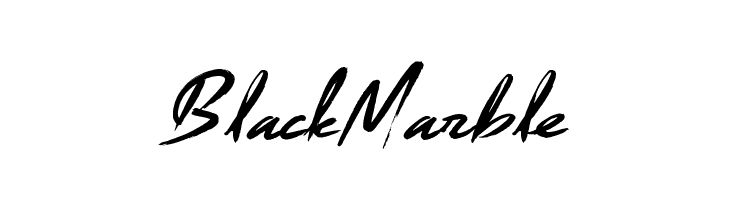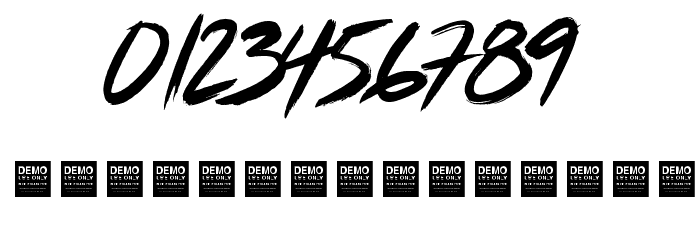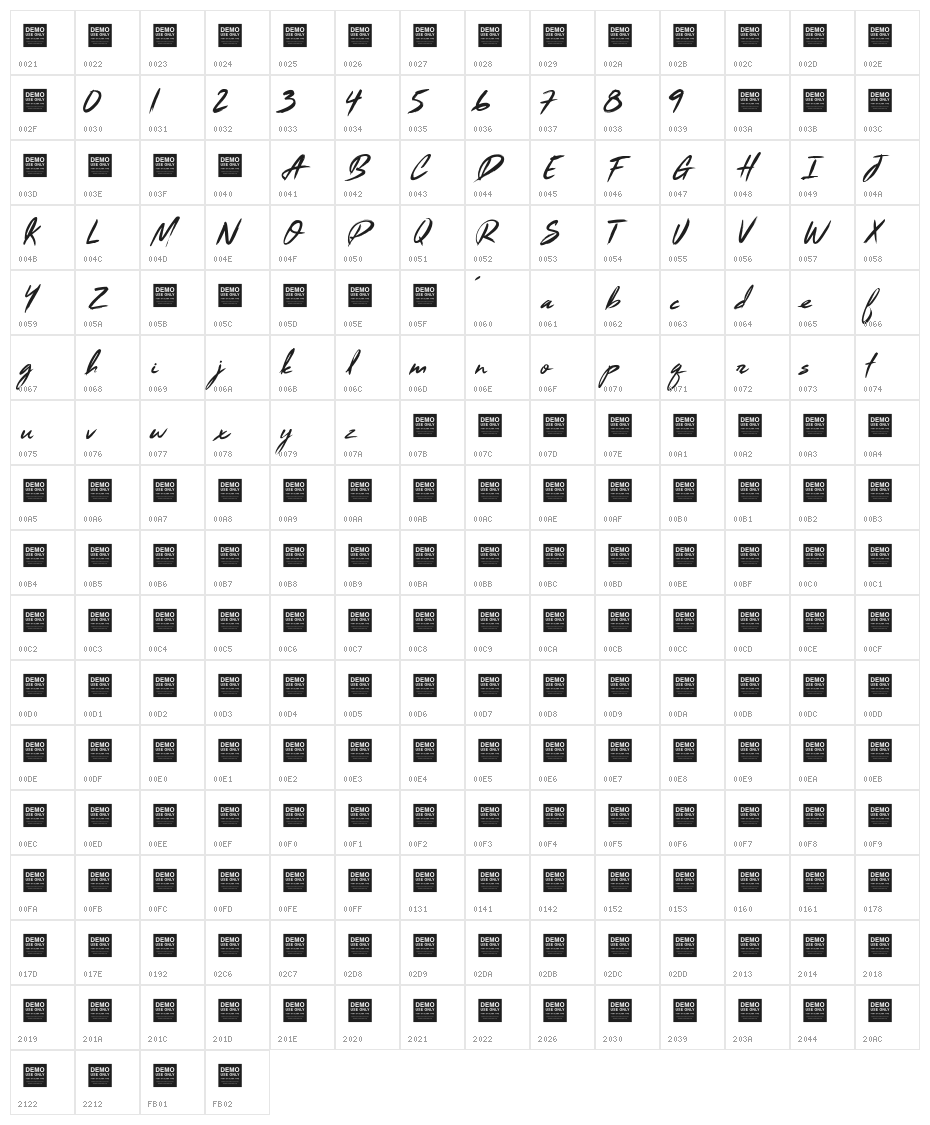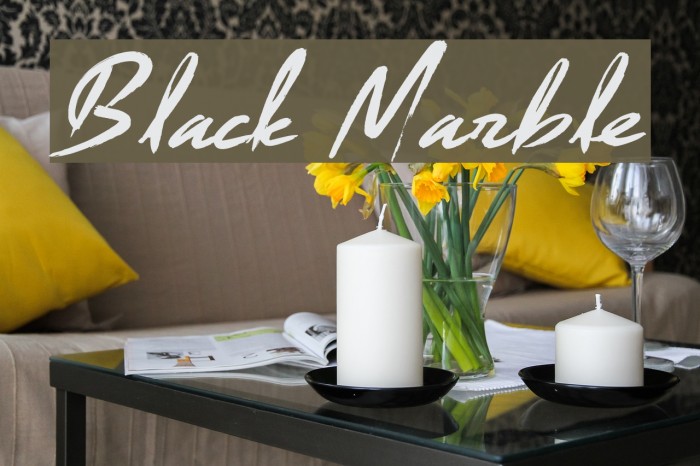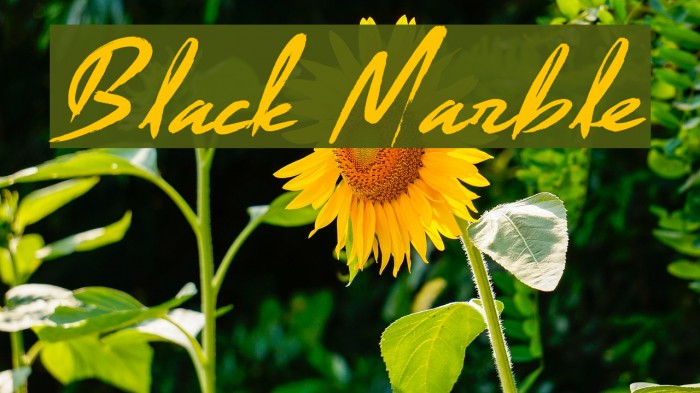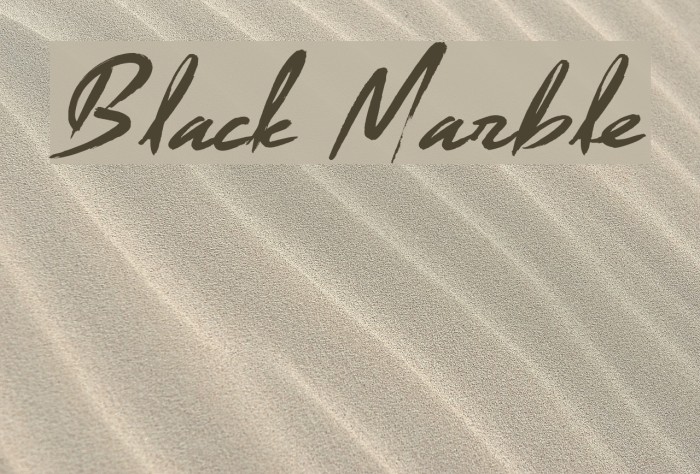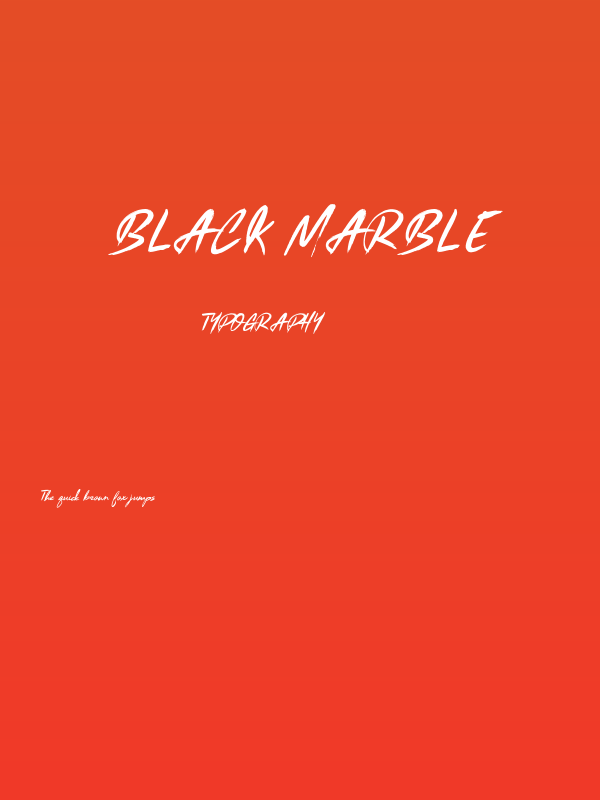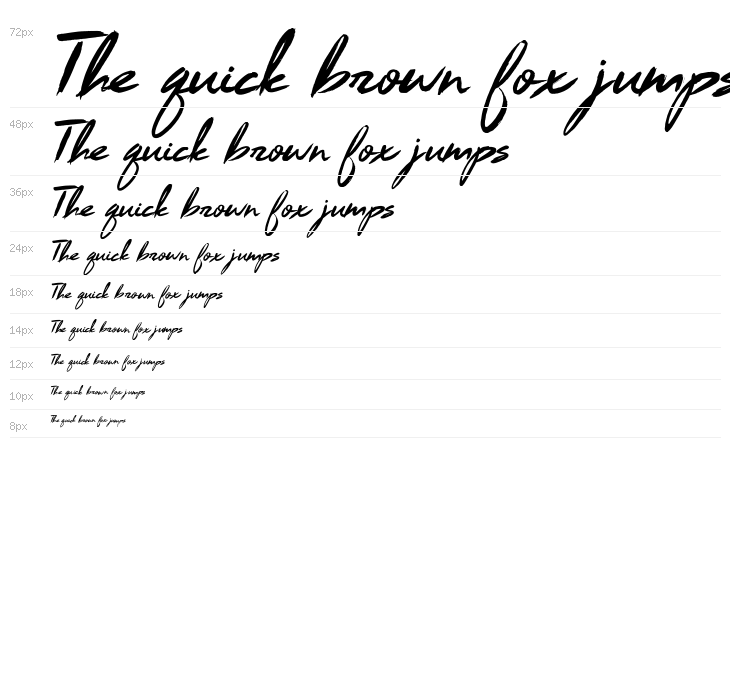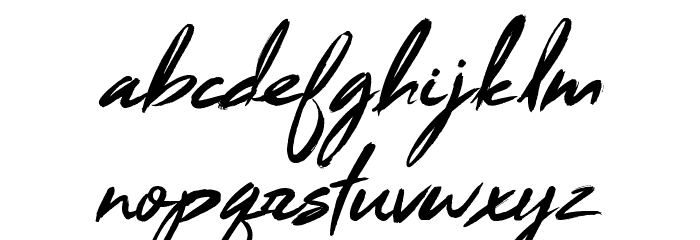
Black Marble Font
Black Marble Description
This font features a dynamic and energetic script style, characterized by its bold and sweeping strokes. The letters have a hand-painted appearance, with varying thickness that adds a sense of movement and flair. The uppercase and lowercase letters maintain a consistent style, with elongated and slightly slanted forms that enhance its expressive nature. The numerals and special characters follow the same aesthetic, ensuring a cohesive look across all glyphs. This font's artistic and bold design makes it stand out, perfect for projects that require a touch of creativity and individuality.